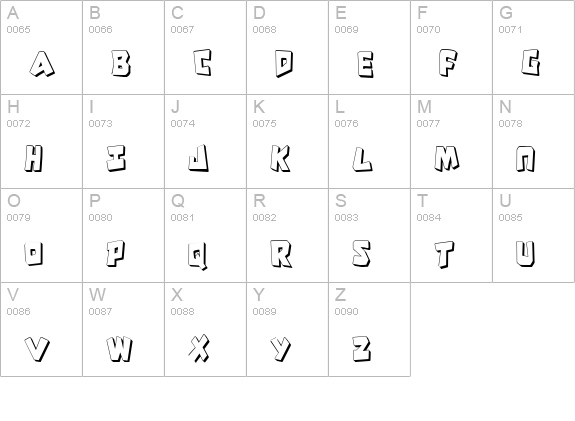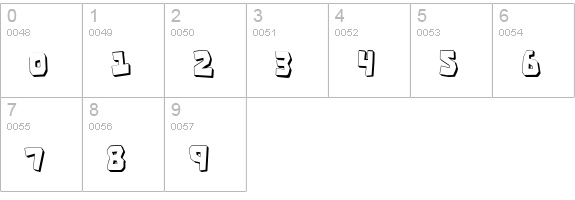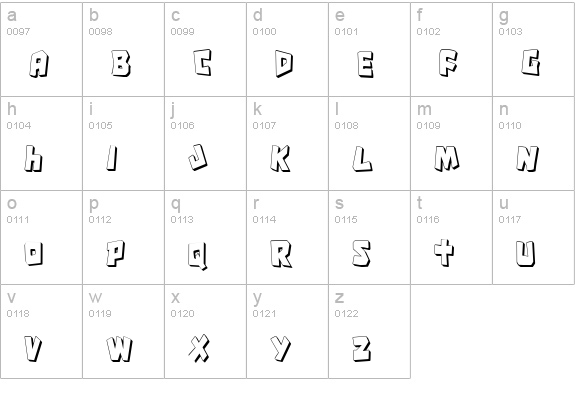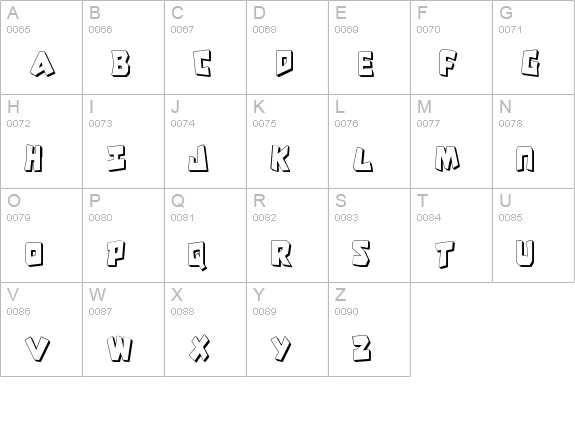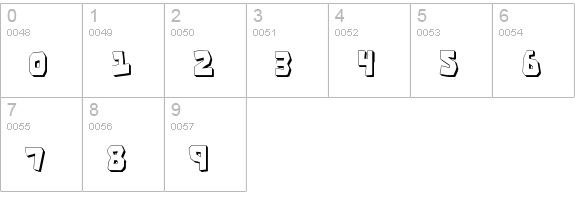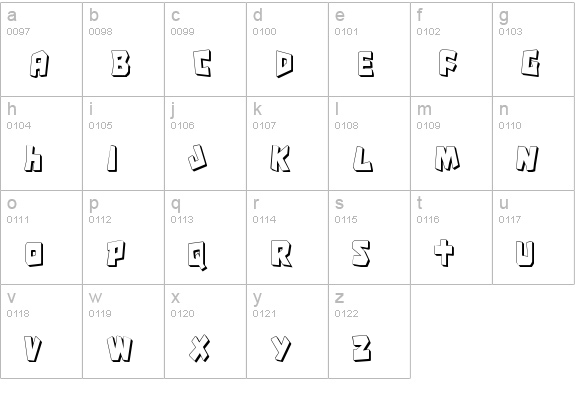
Cro-Magnum Condensed Shadow is a distinctive, condensed-width variant in the Cro typeface family \xE2\x80\x94 well suited to design and typography projects.
Cro-Magnum Condensed Shadow font is a bold and dynamic typeface that exudes strength and impact. With its condensed design and striking shadow effect, this font is perfect for making a statement in headlines, titles, and other eye-catching designs. Its sharp angles and clean lines give it a modern and edgy look that is sure to grab attention. What makes Cro-Magnum Condensed Shadow font even more appealing is that it is available for free download at FontsMarket.com. This means that you can easily add this powerful font to your collection without any cost. Whether you're working on a poster, logo, or any other design project, Cro-Magnum Condensed Shadow font is a versatile choice that will help you make a bold statement. Download it now and unleash the power of this striking typeface in your designs.